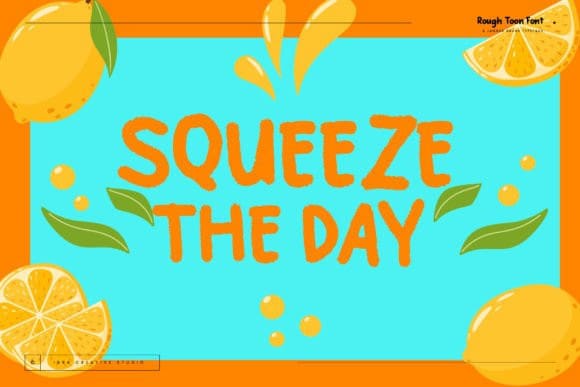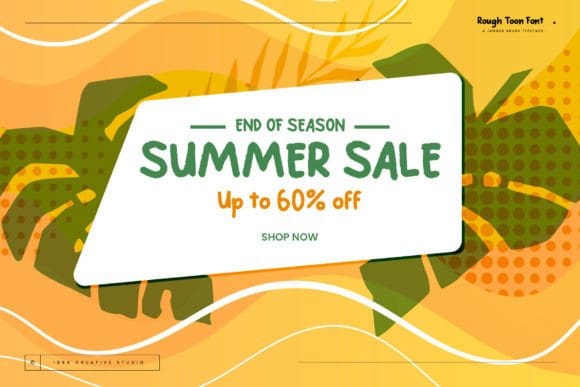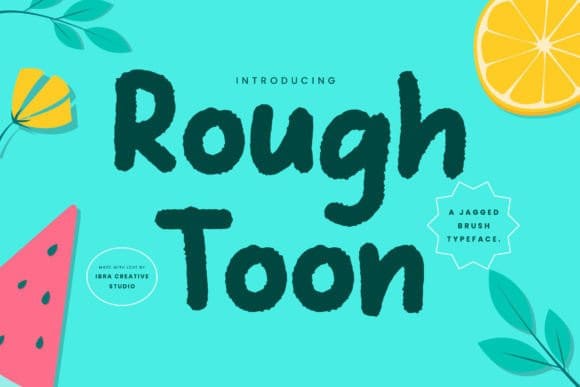
Rough Toon Font
Rough Toon Font, an avant-garde jagged brush typeface, unleashes a dynamic and bold energy with every stroke. Each character is meticulously crafted with rugged edges, giving it a raw and unconventional aesthetic. This typeface doesn’t shy away from imperfections; instead, it embraces the untamed, chaotic beauty of hand-drawn artistry. Rough Toon injects a dose of edgy character into design projects, capturing attention with its unique blend of rough contours and expressive flair.